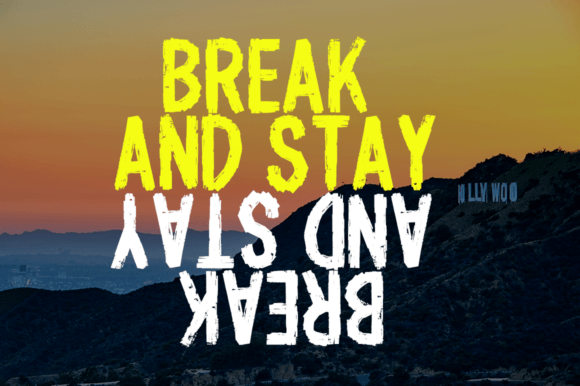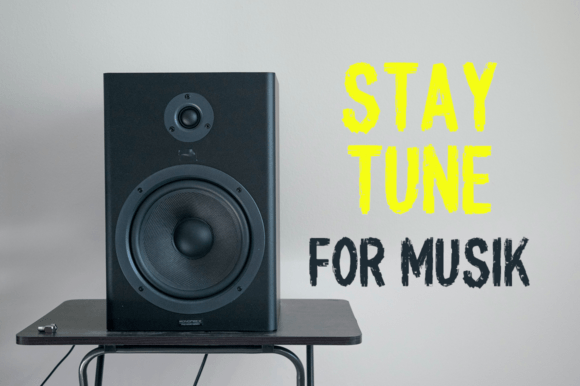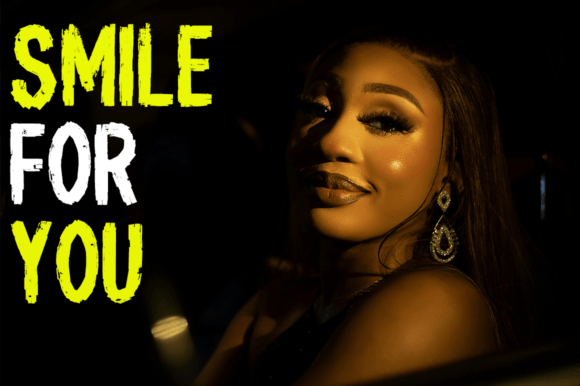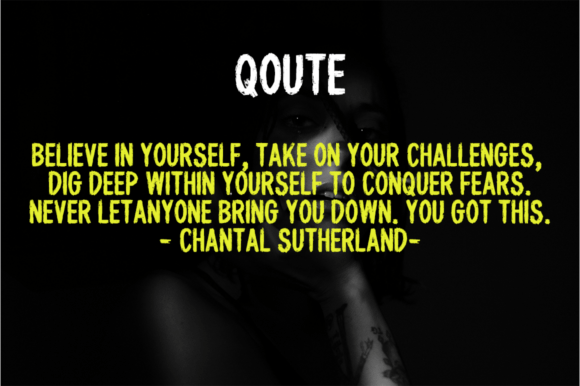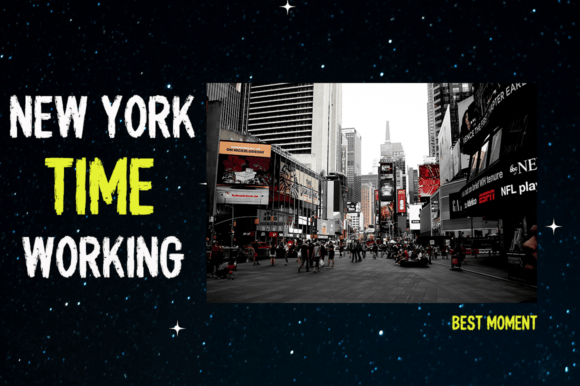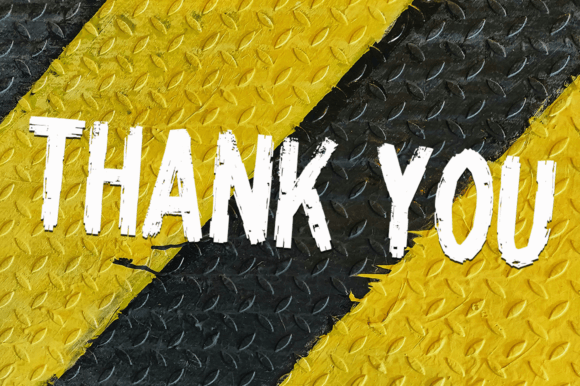
Introducing Bungker: The Handmade Brush Font that Adds a Touch of Authenticity to Your Designs
In the world of typography, few fonts manage to capture the essence of authenticity and uniqueness. But Bungker, a ingeniously crafted handmade brush font, does just that. Its design process honors the natural texture and imperfections that make handmade fonts so charming, making it an excellent choice for designers and crafters looking to add a personal touch to their work.
The Story Behind Bungker
Bungker’s story begins with a passion for preserving the intriguing texture derived from its natural origins. The font’s creators aimed to capture the essence of handmade brush writing, with all its imperfections and quirks. The result is a font that exudes a sense of warmth and character, perfect for adding a touch of personality to any design project.
What Makes Bungker Special?
So, what sets Bungker apart from other fonts? Here are a few key features that make it a standout:
- Authentic texture: Bungker’s handmade brush texture gives it a unique, organic feel that’s perfect for designs that require a personal touch.
- Versatility: Whether you’re working on a logo, invitation, brand project, or personal blog, Bungker is a versatile font that can adapt to any design style.
- Contemporary approach: Despite its handmade origins, Bungker has a contemporary feel that makes it suitable for modern designs, from website content to product packaging.
- Distinct charisma: Bungker has a certain charm that can transform any text into an engaging masterpiece, making it perfect for designers and crafters looking to add a touch of personality to their work.
How to Use Bungker in Your Designs
Bungker is an incredibly versatile font that can be used in a wide range of design projects. Here are a few ideas to get you started:
- Invitations and greeting cards: Add a personal touch to your invitations and greeting cards with Bungker’s unique, handmade texture.
- Brand projects and logos: Use Bungker to create a distinctive brand identity that sets you apart from the competition.
- Website content and blogs: Add a touch of personality to your website content and blog posts with Bungker’s contemporary, yet handmade feel.
- Product packaging and posters: Use Bungker to create eye-catching product packaging and posters that showcase your brand’s personality.
Why Designers and Crafters Love Bungker
Designers and crafters alike love Bungker for its unique blend of authenticity and versatility. Here are a few reasons why:
- Easy to read: Despite its handmade texture, Bungker is incredibly easy to read, making it perfect for body text and headlines.
- Highly customizable: Bungker’s handmade texture means that no two uses of the font are ever exactly the same, giving you endless opportunities for customization.
- Supports multiple languages: Bungker supports multiple languages, making it a great choice for designers and crafters working on international projects.
In conclusion, Bungker is a truly unique handmade brush font that adds a touch of authenticity and personality to any design project. Its versatility, contemporary approach, and distinct charisma make it an excellent choice for designers and crafters looking to create engaging and captivating designs. Whether you’re working on a brand project, personal blog, or craft project, Bungker is sure to transform your text into an engaging masterpiece.